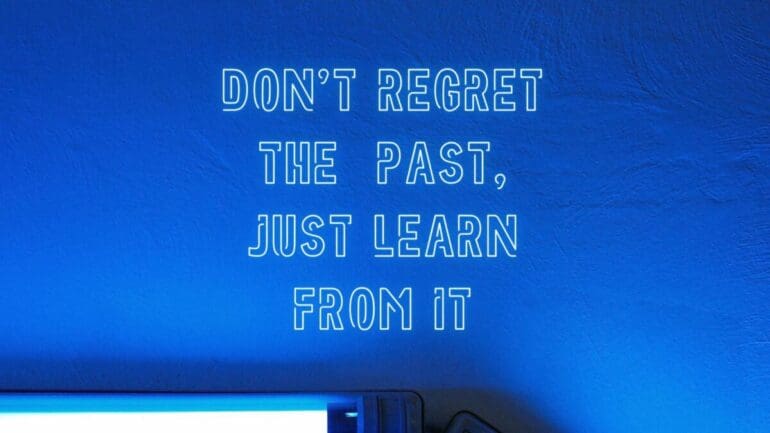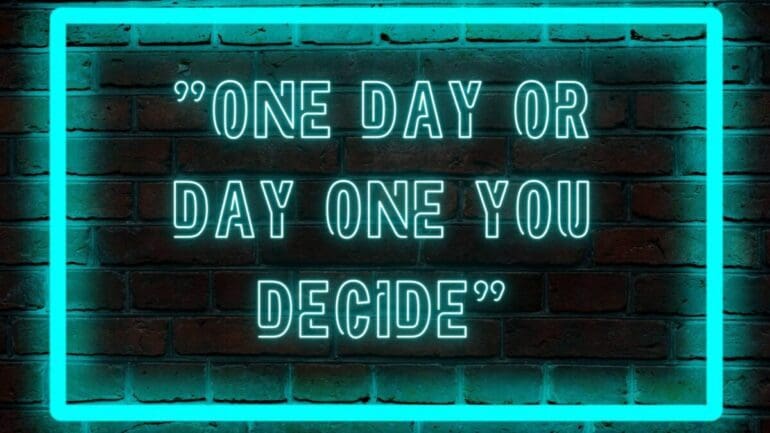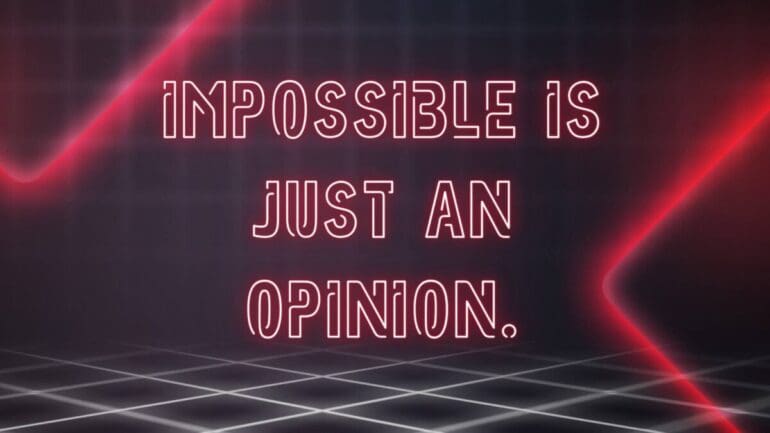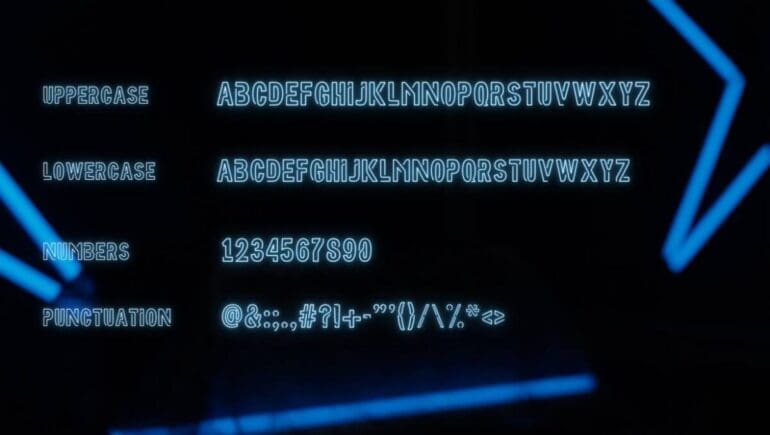
Neon Led Ligth Font
The Neon Led Light Font comprises only OTF features with uppercase and lowercase, numbers and some mandatory symbols, etc. You can also resize or rescale the typeface style with the help of its OTF feature without losing its original quality.
Its unusual characters and effective lines make the font style more effective and more awesome. It can fulfill all designing requirements and can work great on your various designs.